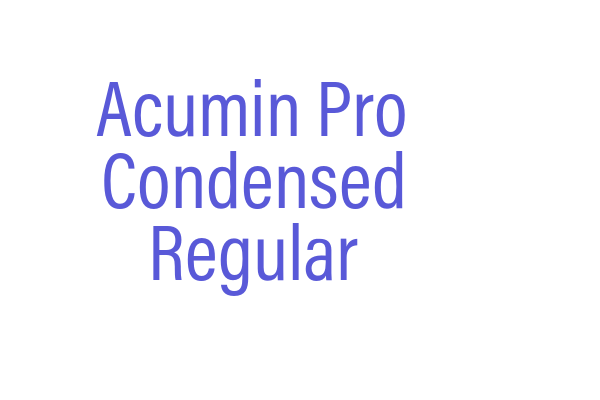
Acumin Pro Condensed Regular is a sleek and modern sans-serif font designed by Robert Slimbach. Part of the Acumin Pro Condensed font family, this style is perfect for projects that require a clean and professional look. Ideal for use in both print and digital designs, it is well-suited for logos, headlines, and body text.
Font Name: Acumin Pro Condensed Regular
Designer: Robert Slimbach
Font Family: Acumin Pro Condensed